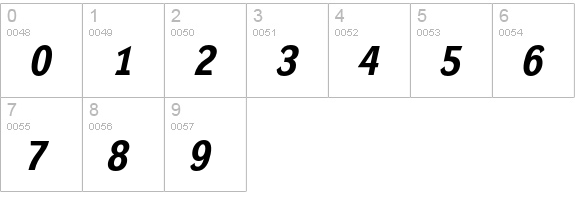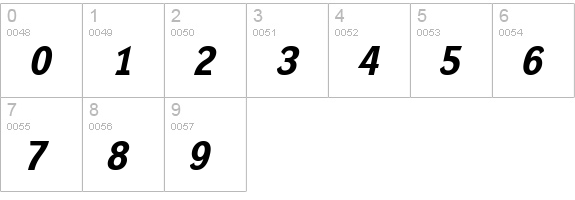
Dynamo Italic H Font Details
Dynamo Italic H is a distinctive, italic variant in the Dynamo typeface family \xE2\x80\x94 well suited to design and typography projects.
Dynamo Italic H font is a sleek and modern typeface that exudes elegance and sophistication. Its italic style adds a touch of flair and creativity to any design project, making it ideal for use in branding, advertising, and editorial layouts. The font features clean lines and a bold presence that commands attention while remaining effortlessly stylish. What sets Dynamo Italic H font apart is not only its striking design but also the fact that it is available for free download at FontsMarket.com. This means that designers and creatives can easily access this premium-quality font without any cost, making it an excellent choice for those looking to elevate their designs without breaking the bank. Whether you're working on a website, poster, logo, or any other creative project, Dynamo Italic H font is sure to make a lasting impression. With its versatility and modern aesthetic, this font is a must-have in any designer's toolkit. Download Dynamo Italic H font today and bring your designs to life with style and sophistication.